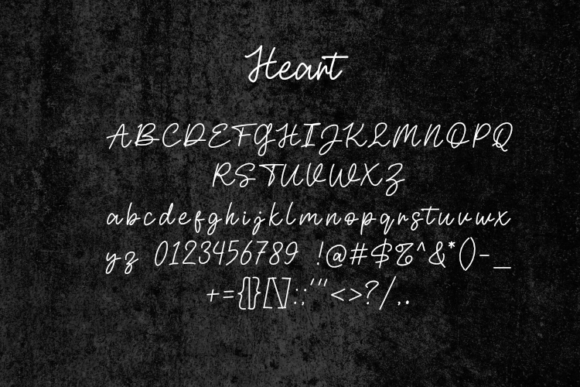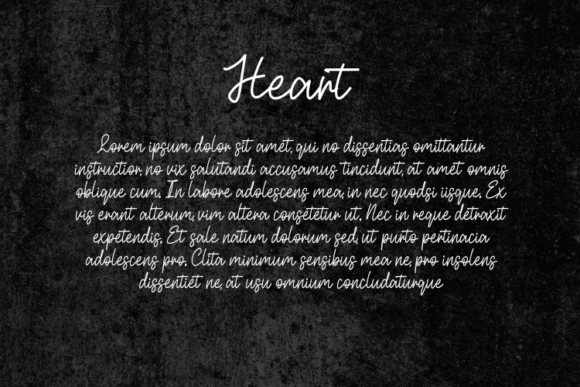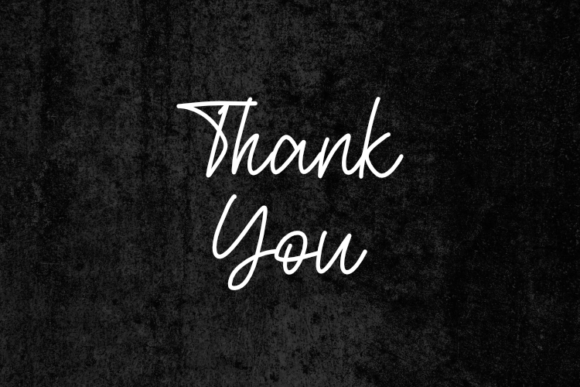
Introducing Heart Font: Elevate Your Designs with Style and Sophistication
Are you a designer or crafter looking for a unique and versatile font to take your apparel and product designs to the next level? Look no further than the Heart font. This stunning typeface is designed to effortlessly infuse a touch of style and sophistication into your creations, making it an indispensable tool for every designer’s toolkit.
A Font for Every Design Need
The Heart font is incredibly versatile, making it ideal for a myriad of applications. From fashion and apparel designs to product labels, packaging, and marketing materials, this font harmoniously aligns with your design philosophy. Whether you’re creating:
- Fashion apparel and accessories
- Product labels and packaging
- Marketing materials and advertisements
- Stationery and invitations
- Digital graphics and social media content
the Heart font is the perfect choice. Its elegant and sophisticated design ensures that your creations stand out from the crowd, leaving a lasting impression on your audience.
Key Features of the Heart Font
- Unique and stylish design: The Heart font boasts a distinctive and eye-catching design that adds a touch of sophistication to your creations.
- High-quality design: Professionally crafted to ensure crisp and clear rendering at various sizes.
Unlock Your Creative Potential with the Heart Font
As a designer or crafter, you’re constantly looking for ways to express your creativity and bring your ideas to life. The Heart font provides the perfect opportunity to do just that. With its elegant and sophisticated design, you can:
- Create stunning fashion apparel and accessories that turn heads.
- Design eye-catching product labels and packaging that stand out on store shelves.
- Craft compelling marketing materials and advertisements that capture your audience’s attention.
By incorporating the Heart font into your design toolkit, you’ll be able to elevate your work to new artistic heights and take your designs to the next level.
Get Ready to Fall in Love with the Heart Font
In conclusion, the Heart font is a game-changer for designers and crafters looking to add a touch of style and sophistication to their creations. Its unique design, universal compatibility, and ease of use make it an indispensable tool for every designer’s toolkit. Whether you’re a seasoned pro or just starting out, the Heart font is sure to inspire your creativity and help you bring your ideas to life.